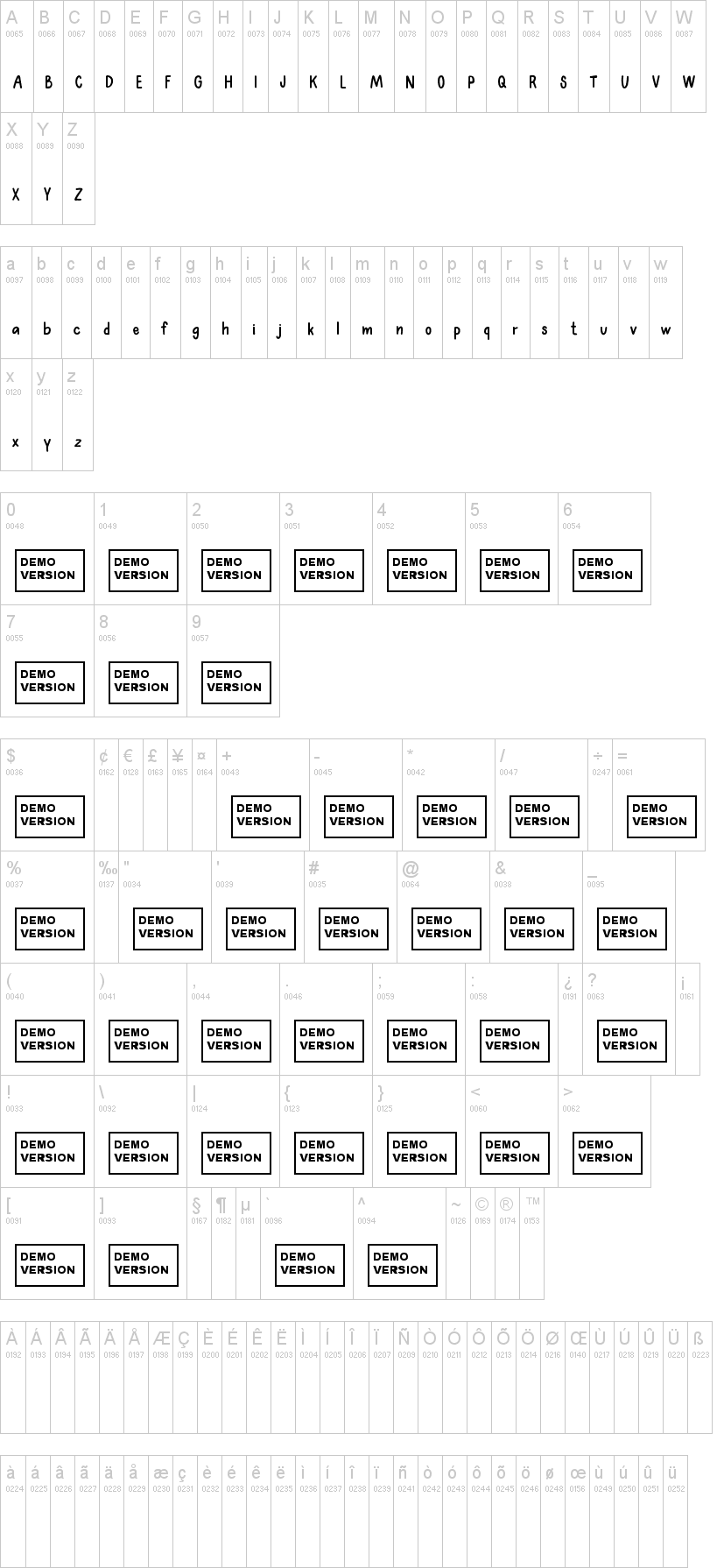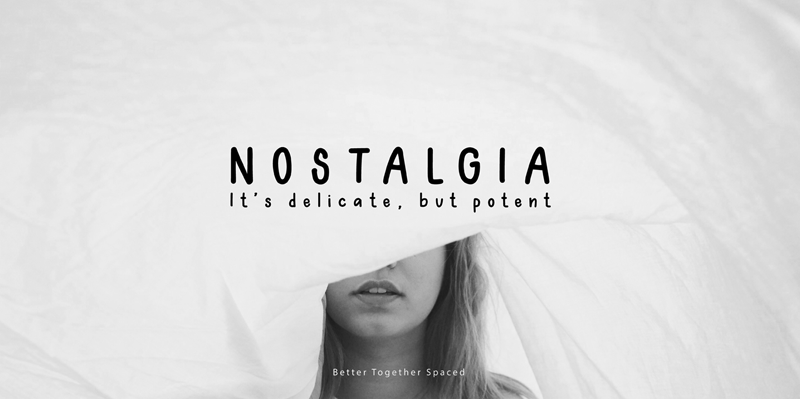
Better Together Spaced is one of 4 fonts of Better Together Family. It's a a specially spaced small font which will give your designs a handwritten feel and a modern aesthetic look.
Full version of Better Together Spaced includes cyrillic and international characters that support most European languages. Hope you like it!